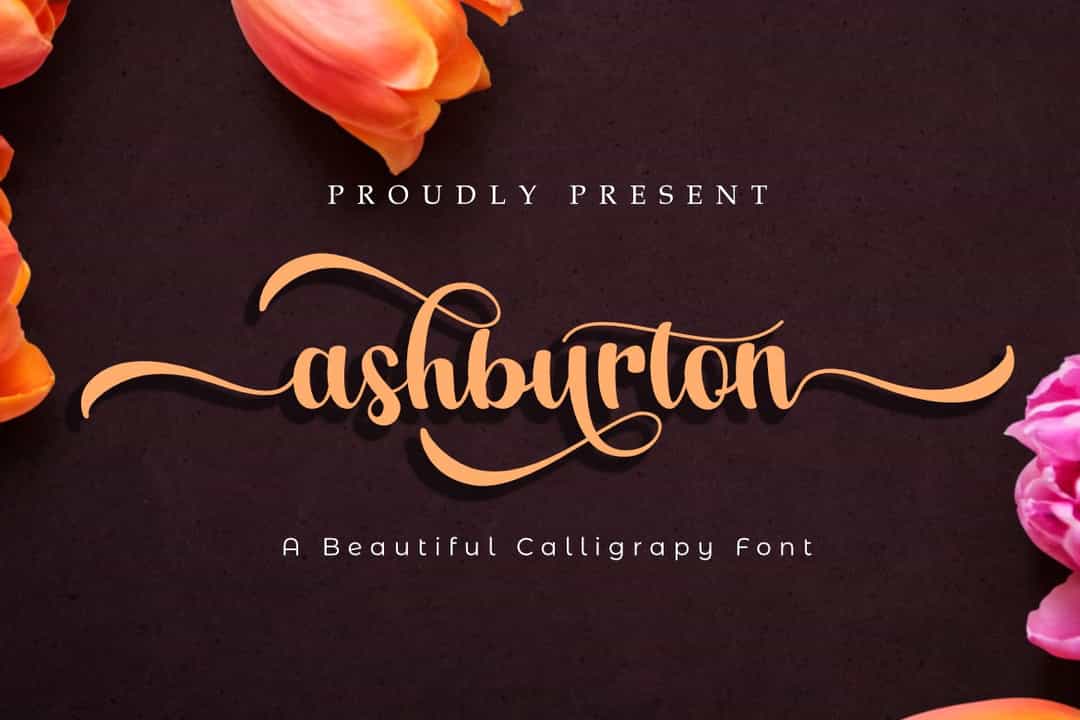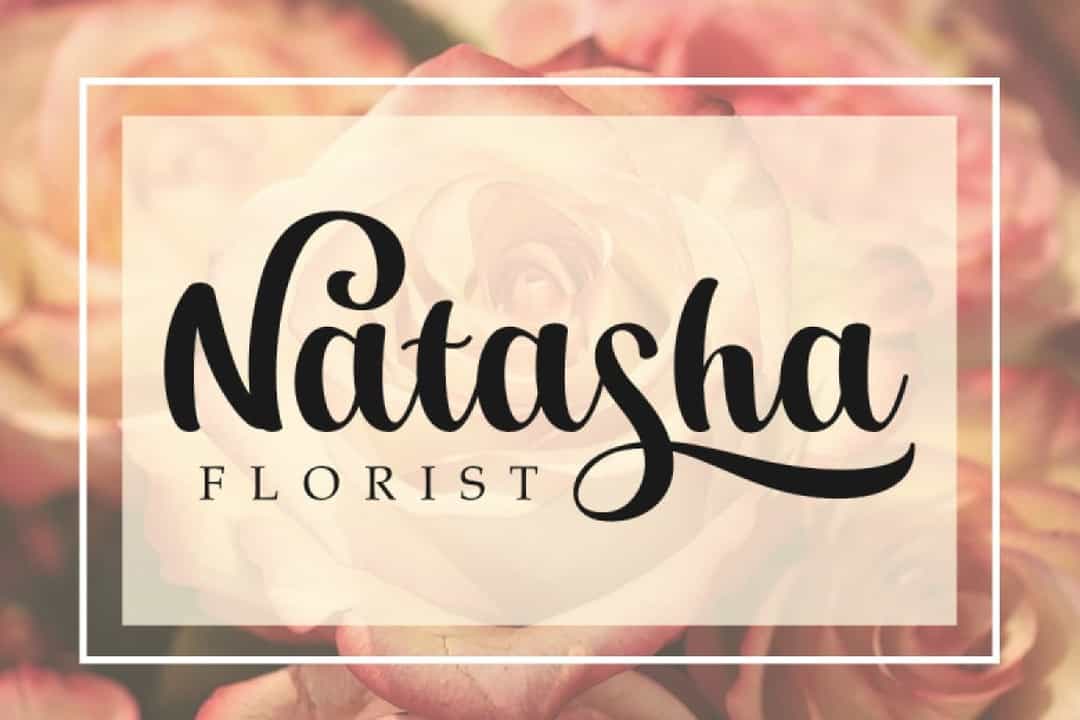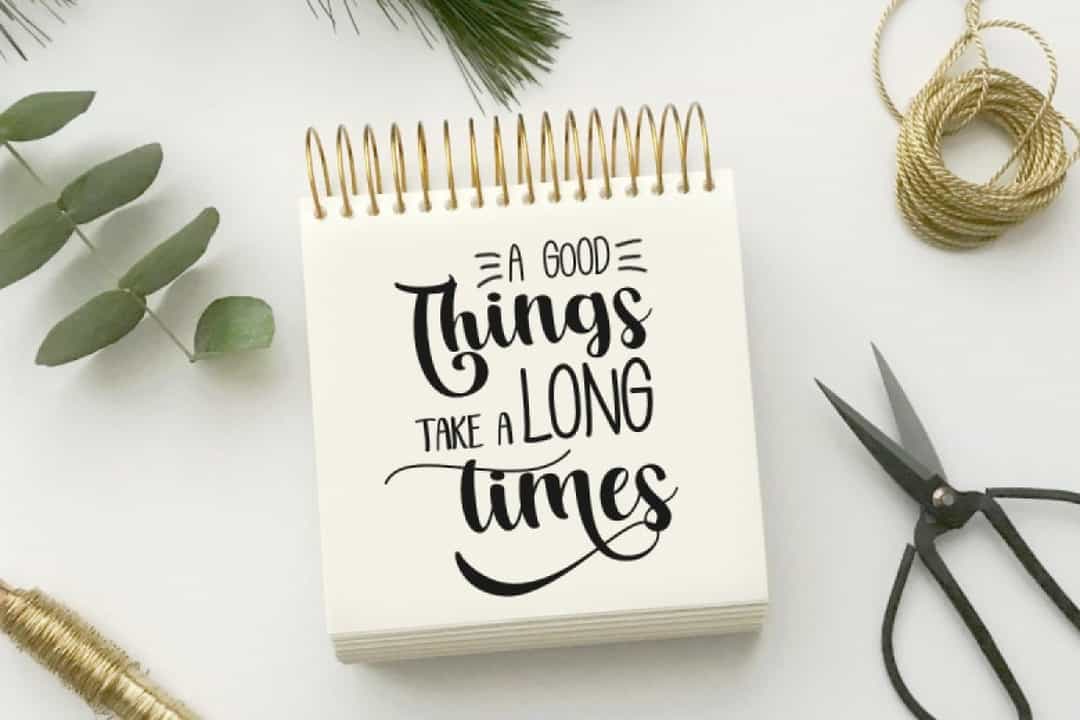
Ashburton Caligraphy Font is both elegant and sophisticated. It makes a stunning statement when used on wedding invitations, thank-you cards, quotes greeting cards, business cards, logos or any design that requires handwritten designs.